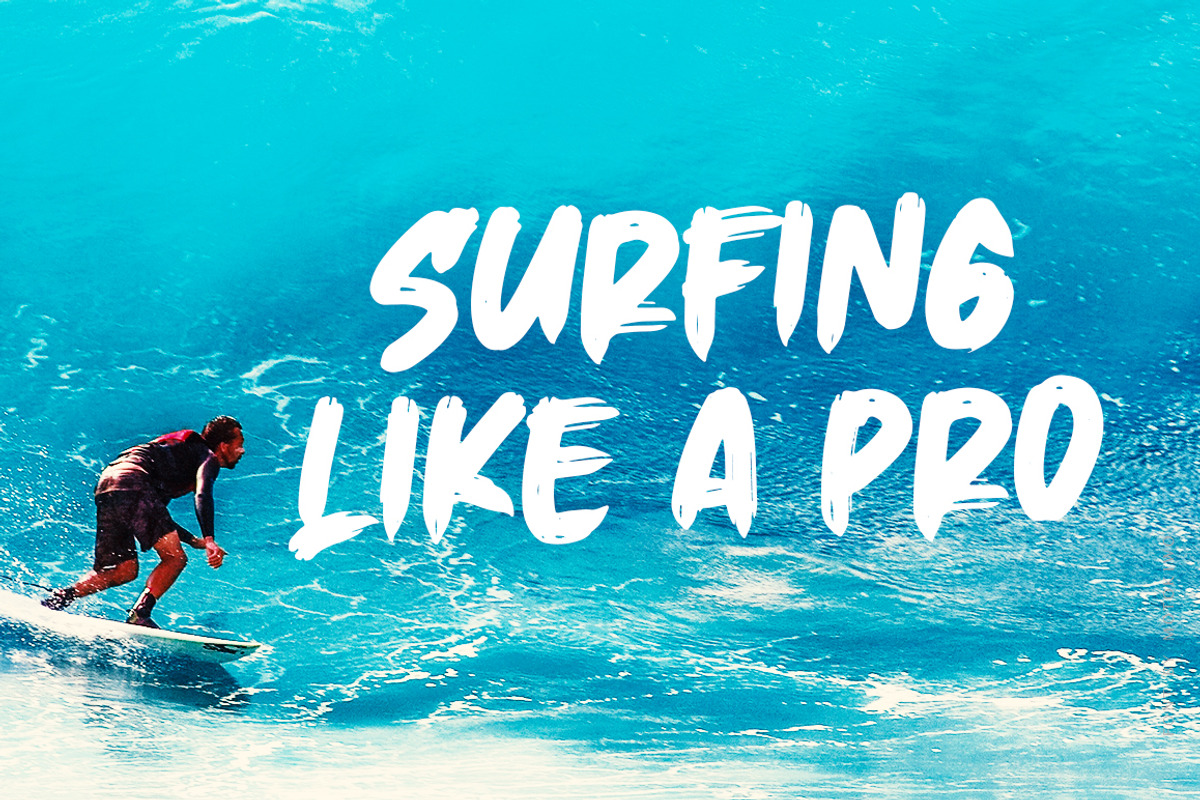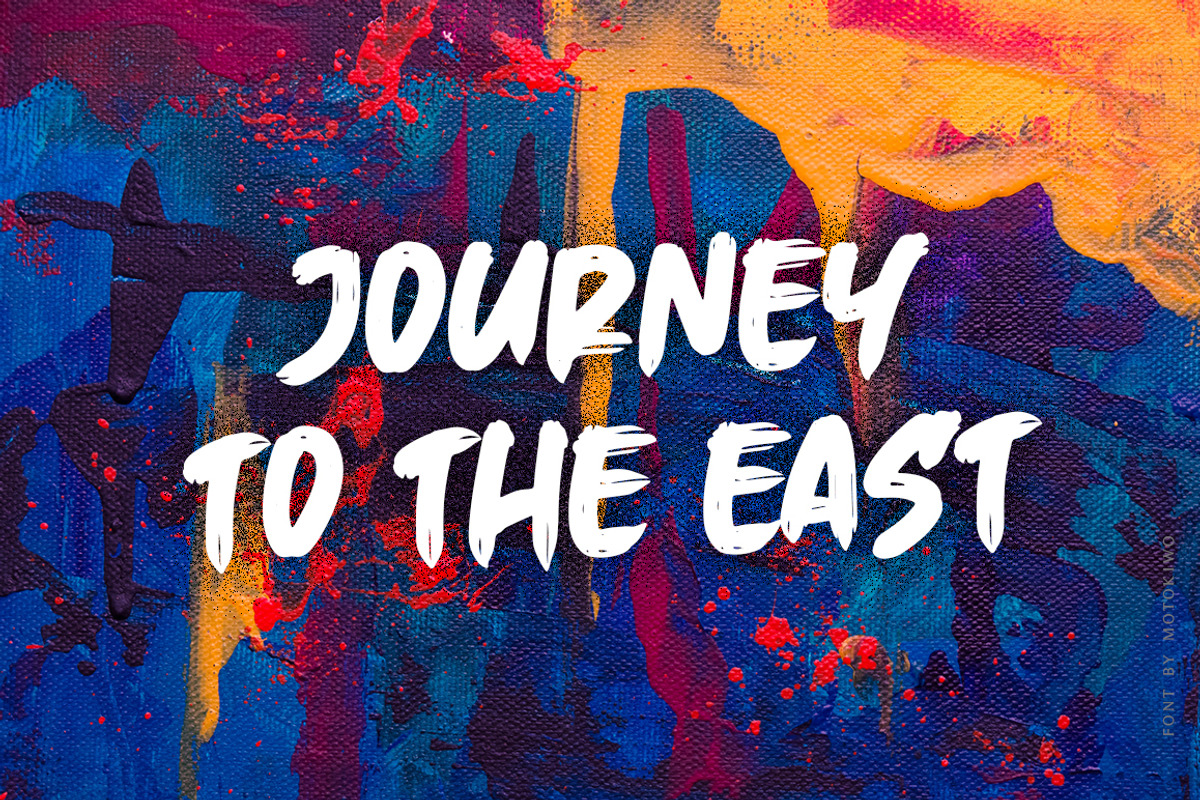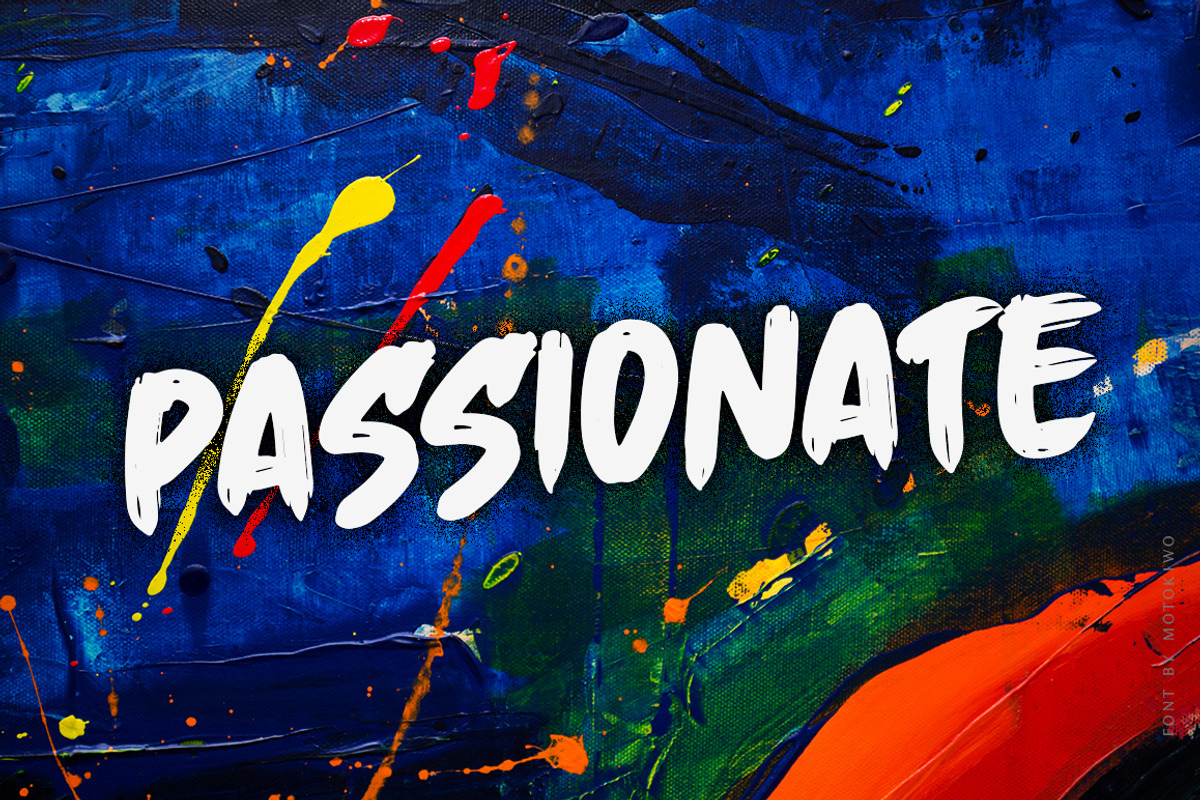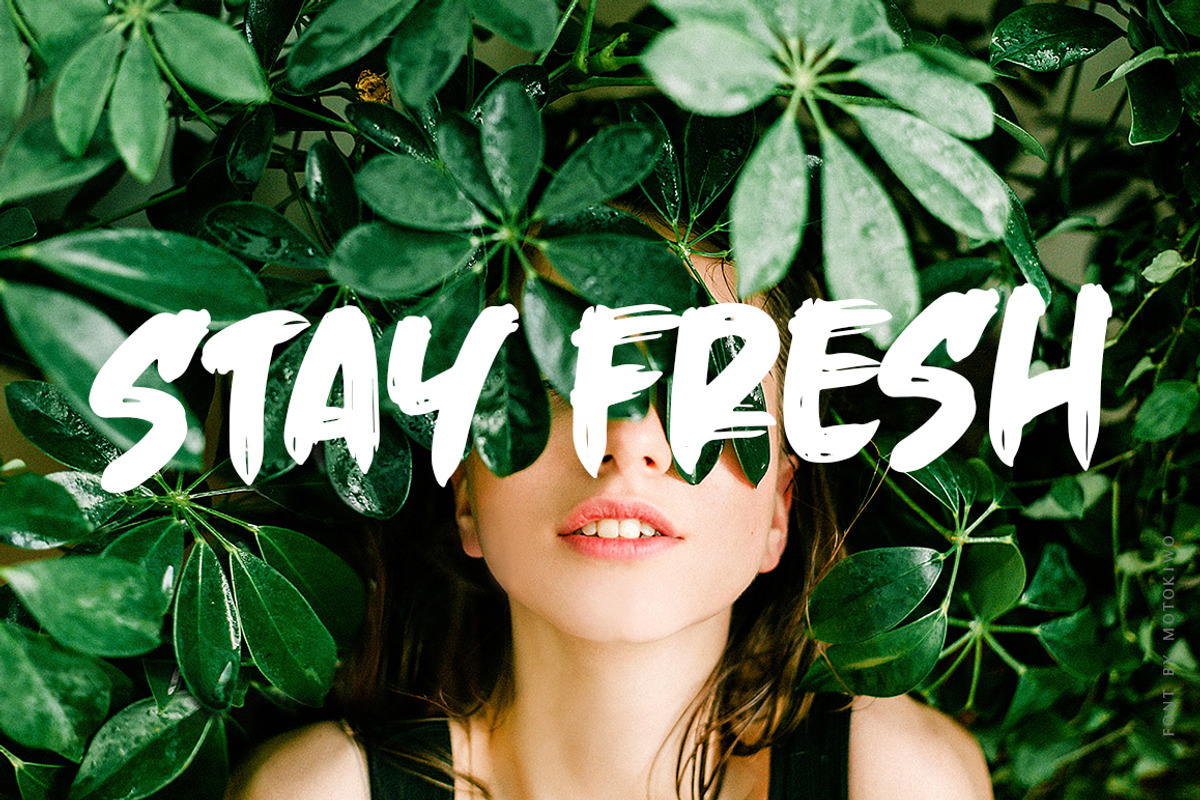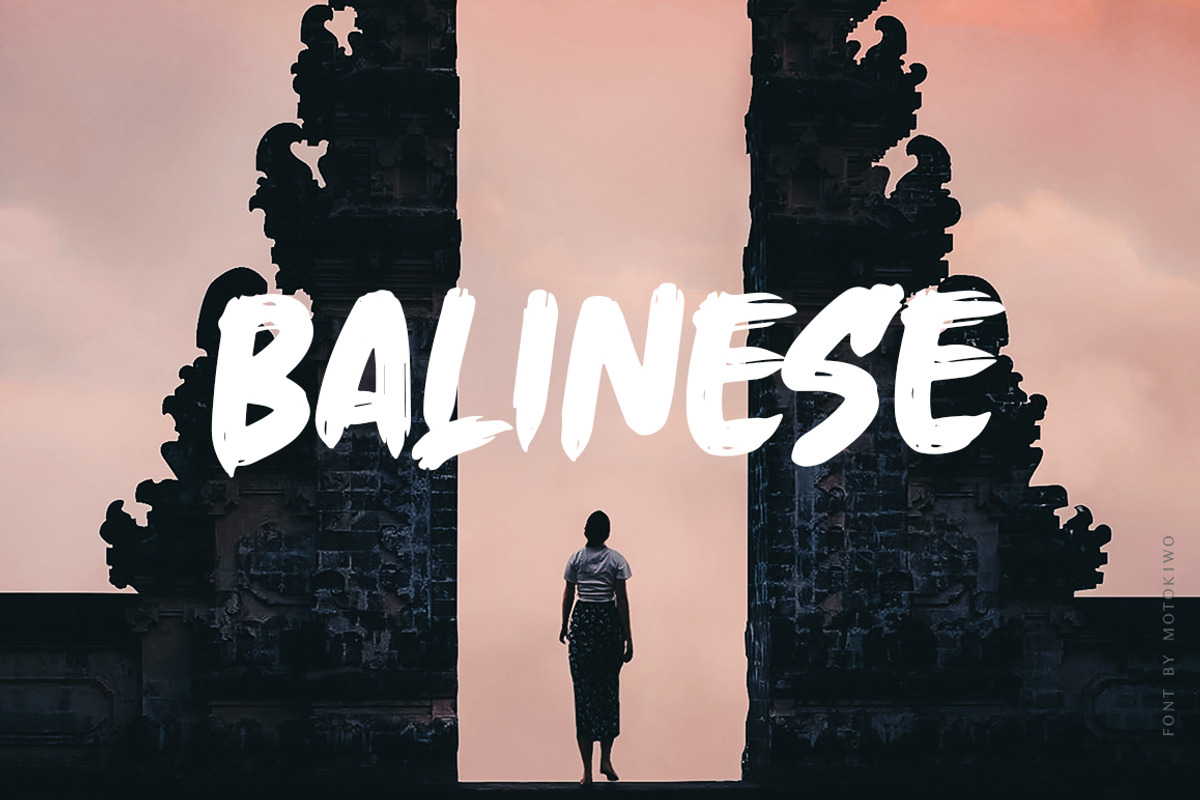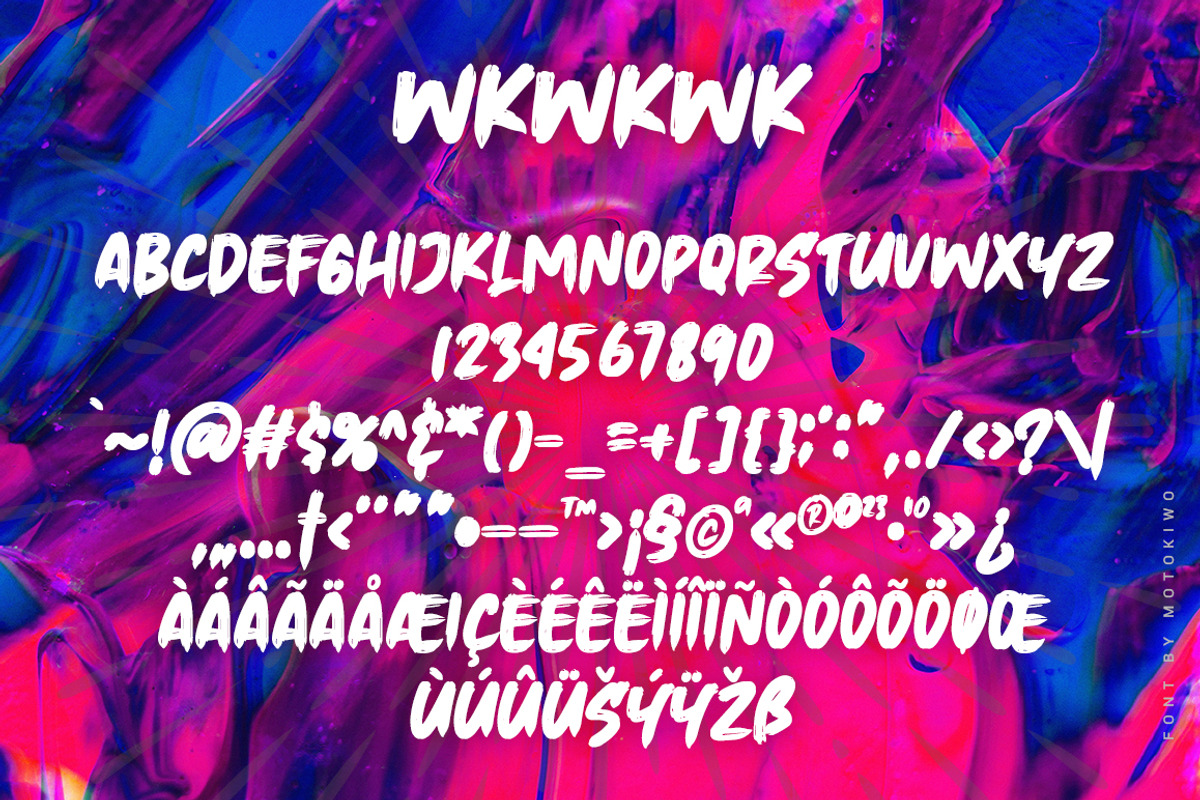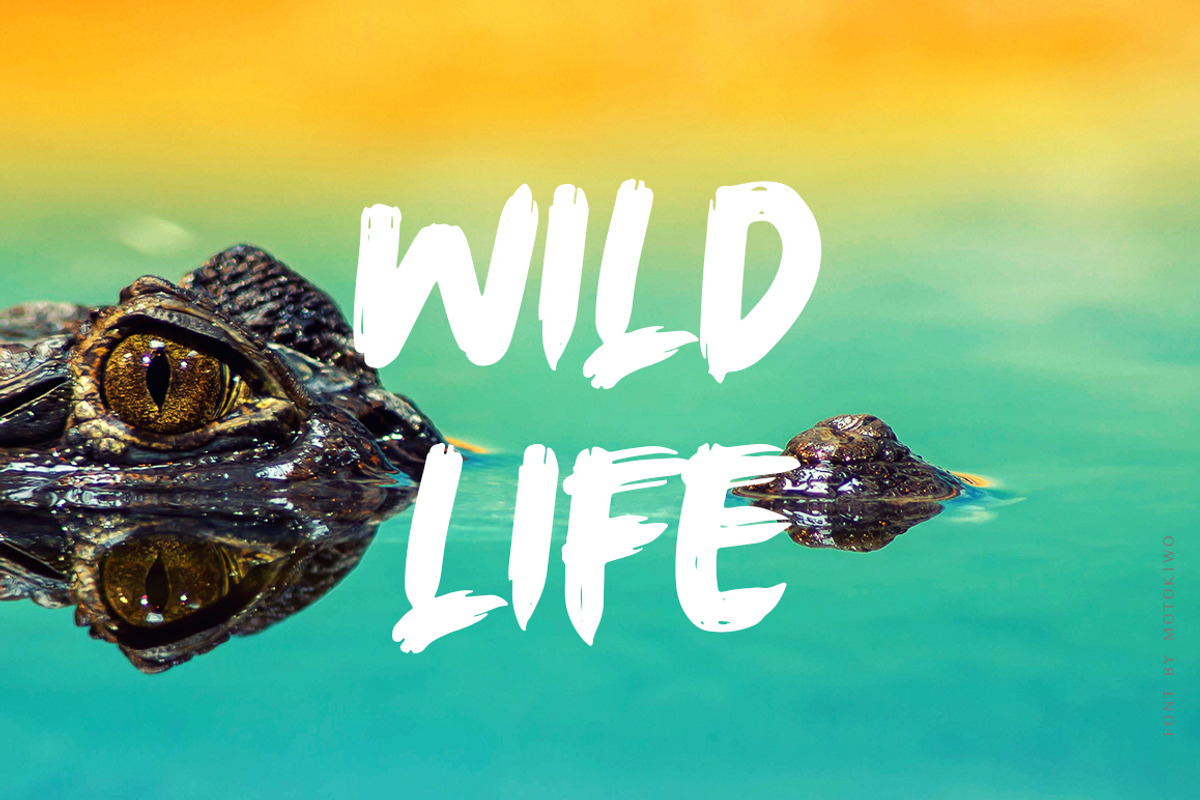
Wkwkwk - Strong Bold Typeface
Wkwkwk - a strong and bold typeface with inky brush style. This font is great for headline, specially for adventure or travel projects. It's all caps with multilingual support and textured brush strokes will catch every eyes into your projects.
- It's all caps with multilingual support and textured brush strokes will catch every eyes into your projects.